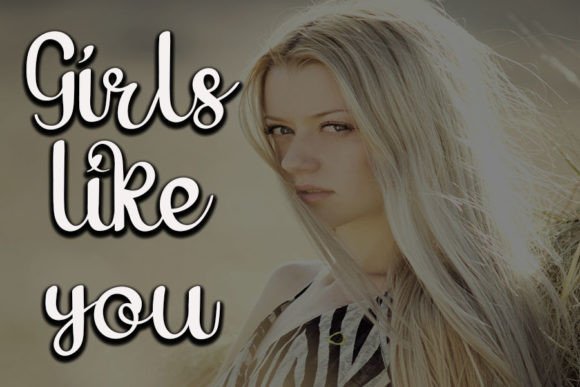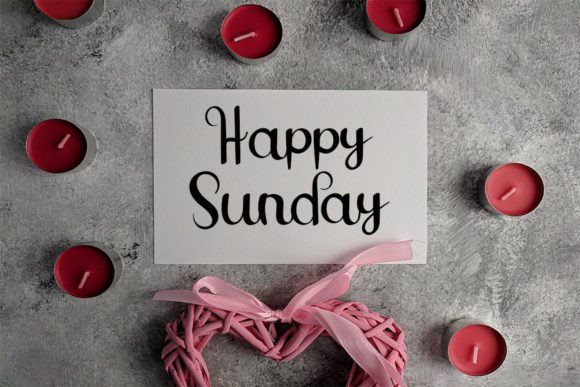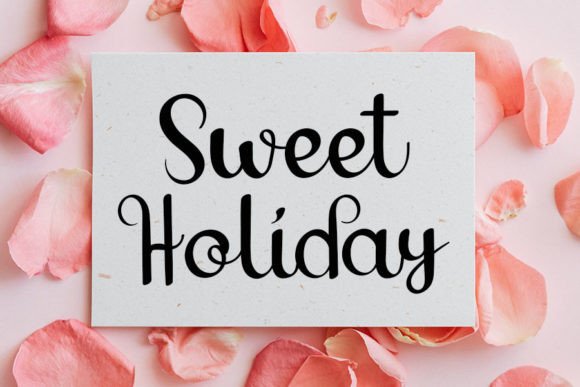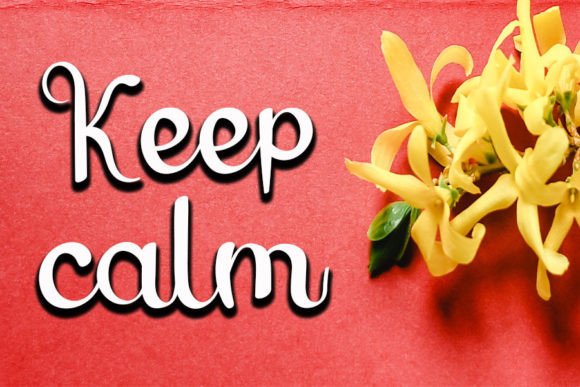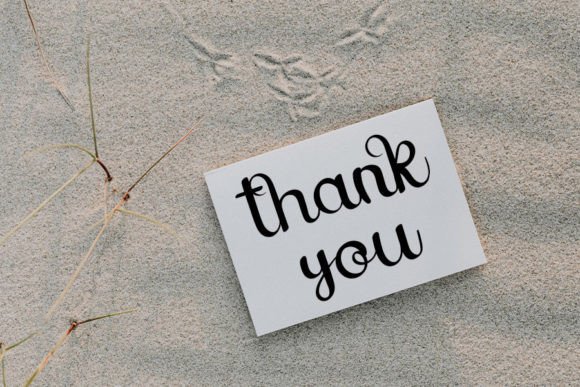
Introduction to Senia Sofia Font
Remember that moment when you’re brainstorming ideas for your next creative project, and you stumble upon the perfect font to bring it all together? For designers, finding the right font can be a game-changer. It’s the missing piece that takes your design from good to great. And that’s exactly what Senia Sofia Font is – a game-changer.
With its unique blend of elegance and quirkiness, Senia Sofia Font is the perfect fit for any design project. Whether you’re working on a logo, branding, social media post, or crafty DIY project, this high-quality font is sure to elevate your design. And the best part? It’s available for a free download, making it an accessible design resource for designers of all levels.
Key Features of Senia Sofia Font
- High-quality, elegant design suitable for creative projects and design resources.
- Unique characteristics include intricate details and a transparent background for easy customization.
- Perfect for use in graphic design, digital art, and creative writing projects.
- Ideal design resource for creating visually appealing and sophisticated designs.
Honest Review: Senia Sofia Font
As a designer, I’m always on the lookout for high-quality design resources to elevate my creative projects. Recently, I had the chance to try out the Senia Sofia Font, and I’m excited to share my honest review.
- ✨ The font is incredibly elegant and sophisticated, perfect for high-end branding and design projects.
- ✨ The transparent background makes it easy to layer and combine with other design elements.
- ⚠️ The font may not be suitable for casual or informal design projects, as it’s quite formal and professional.
Overall, I’m really impressed with the Senia Sofia Font. It’s a high-quality design resource that’s perfect for designers looking to add a touch of elegance to their creative projects. Whether you’re working on a branding project or just need a beautiful font for a design piece, this font is definitely worth checking out.
Senia Sofia Font is commonly used for creating invitations, flyers, and brochures. It’s also great for designing logos and branding materials. With its high-quality design and transparent background, Senia Sofia Font is a versatile design resource that can be used for a variety of creative projects.
To get the most out of Senia Sofia Font, experiment with different font sizes, colors, and combinations. You can also use the font in conjunction with other design elements, such as images and graphics, to create a unique and eye-catching design.